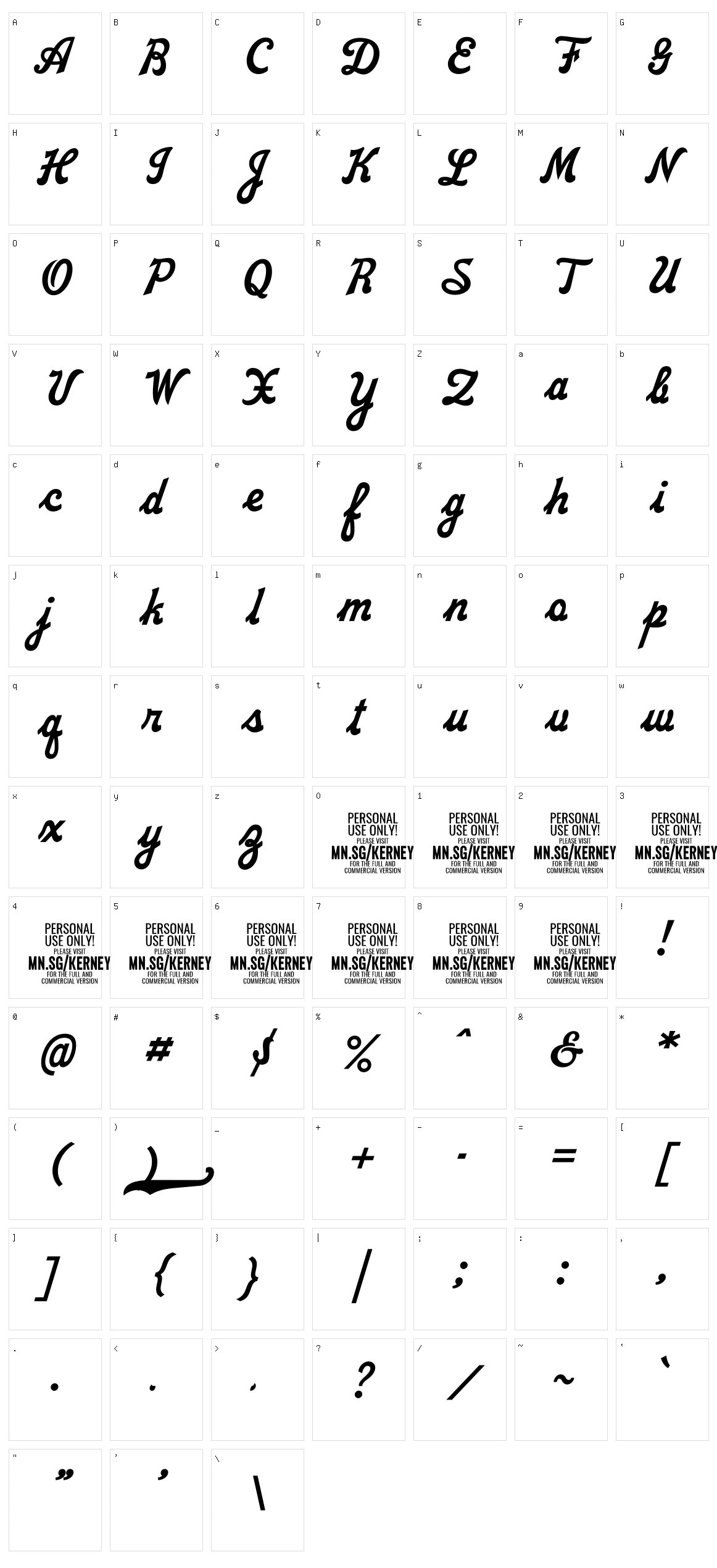
Kerney Script is a cool baseball typeface.
A sporty calligraphy, this retro lettering will be your go-to style for a fresh team logotype or a vintage headline. Drawn and created by Mans Greback in 2022, it has a competitive style and a bold personality.
The Kerney Script family consists of three professional styles:
Regular, Bold and Rounded, complimenting each other for greater design opportunities.
Use underscore _ to make a swash.
Example: Letter_
Use multiple underscores to make longer swashes.
Example: Football____
The font is built with advanced OpenType functionality and has a guaranteed top-notch quality, containing stylistic and contextual alternates, ligatures and more features; all to give you full control and customizability.
It has extensive lingual support, covering all Latin-based languages, from Northern Europe to South Africa, from America to South-East Asia.
It contains all characters and symbols you'll ever need, including all punctuation and numbers.